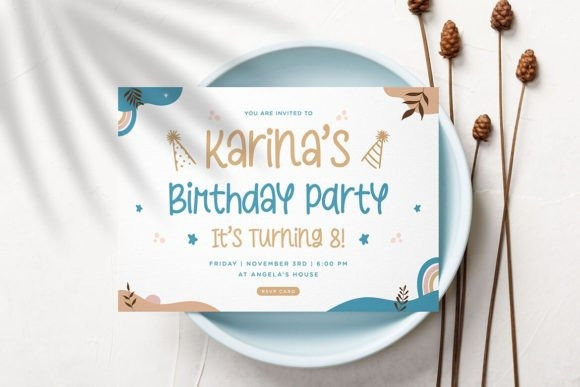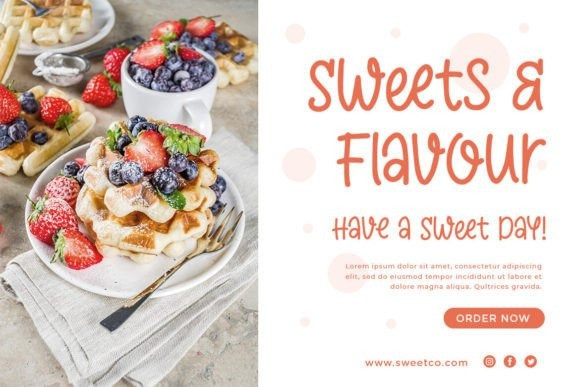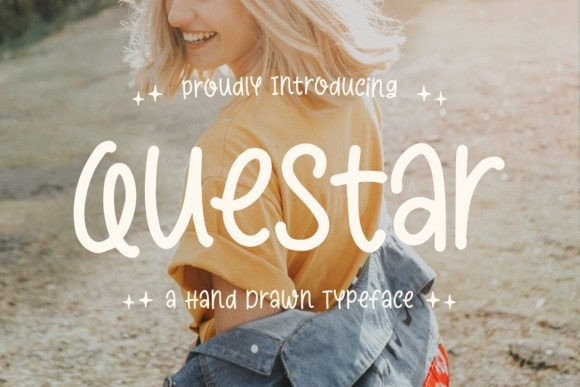
Questar Font
Questar Font a hand-drawn typeface that adds an artistic touch to your designs! Embrace the artistic flair of “Questar” as it adds a touch of warmth to your projects. Whether you’re creating artistic branding, dreamy illustrations, personalized stationery, or creative social media posts, this typeface will captivate your audience with its handcrafted and expressive style.